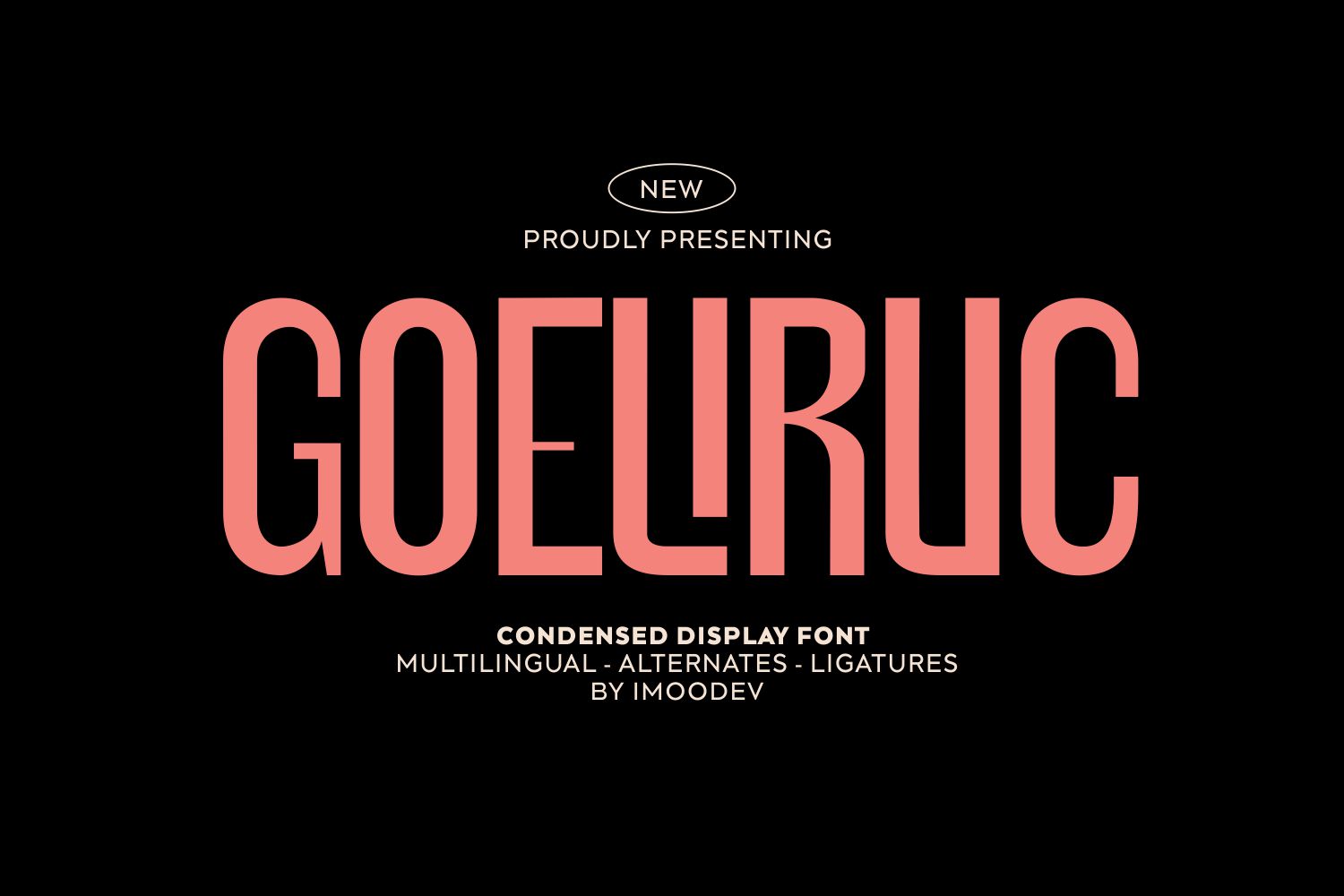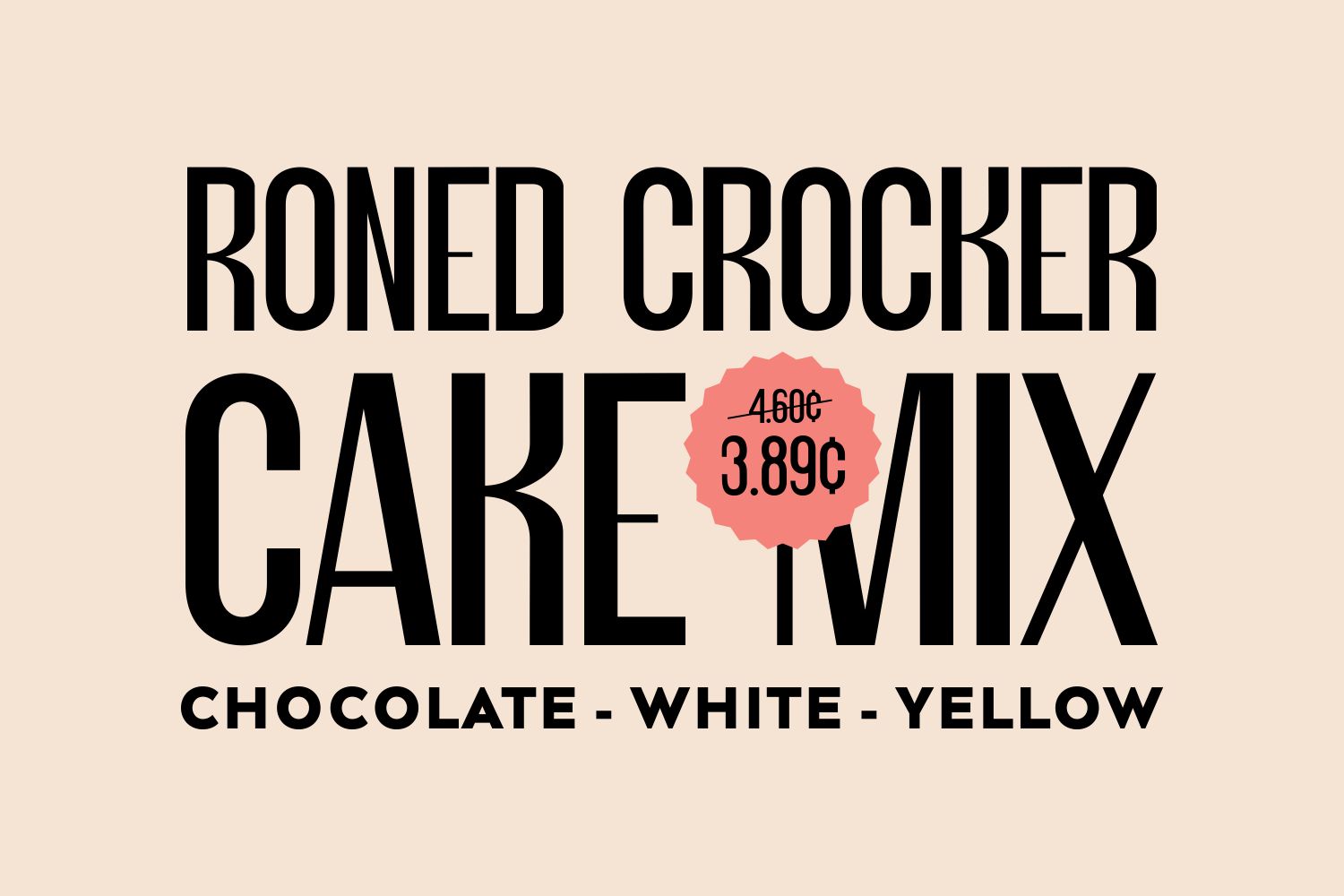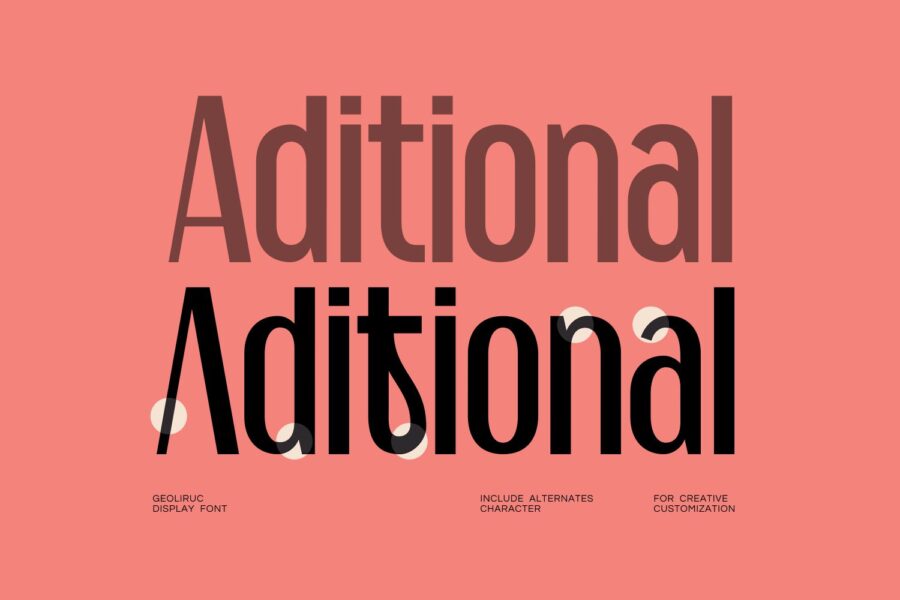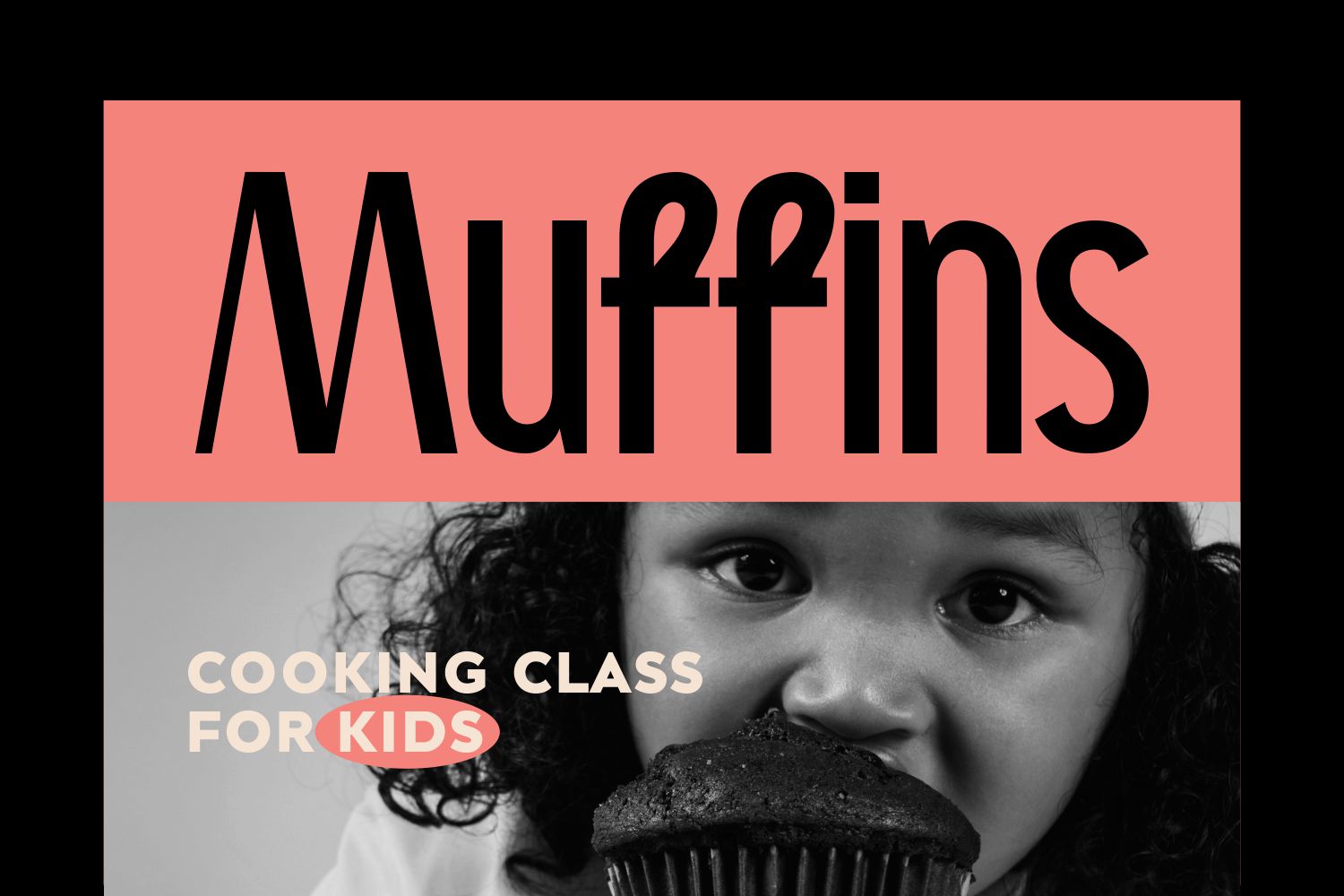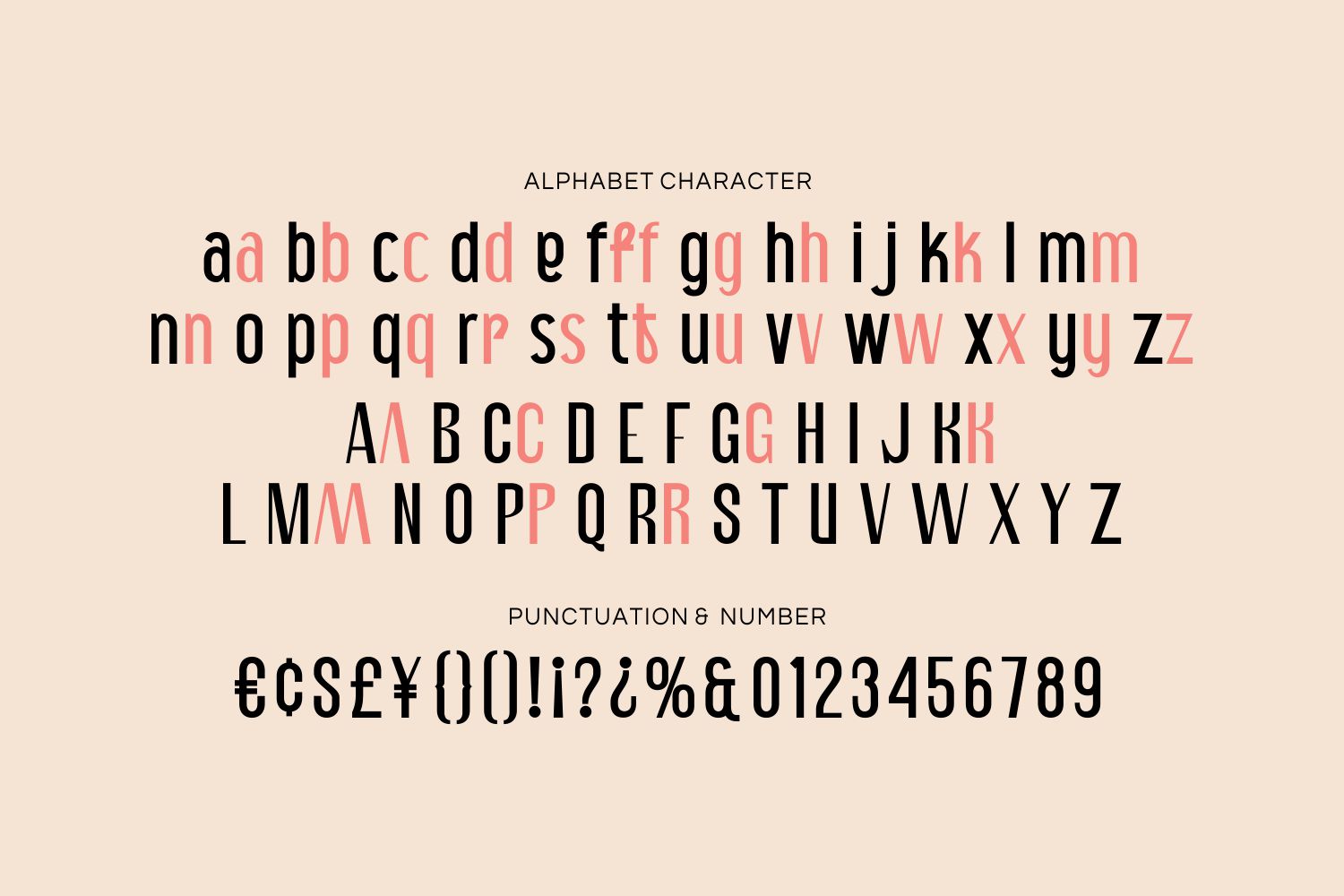
Goeliruc
Geoliruc is a modern condensed display font that combines sleek geometric forms with elegant minimalism. Its tall, narrow proportions make it perfect for headlines, posters, and branding that demand a bold yet stylish presence. With a mix of clean lines and unique alternate shapes, this font offers versatility while maintaining a strong contemporary look.
Designed with alternates and ligatures, Geoliruc allows creative customization for logos, packaging, magazine titles, and promotional designs. Its condensed style ensures maximum impact even in limited space, making it an excellent choice for both print and digital projects that aim to be sharp, trendy, and memorable.
Goeliruc